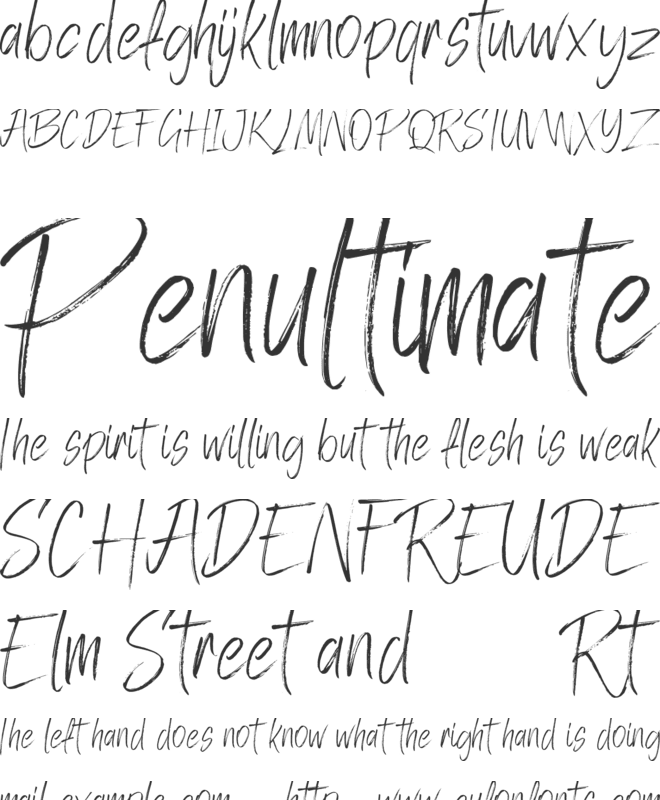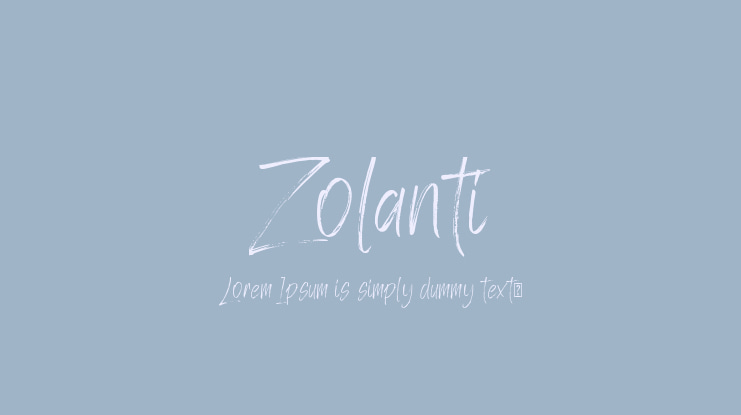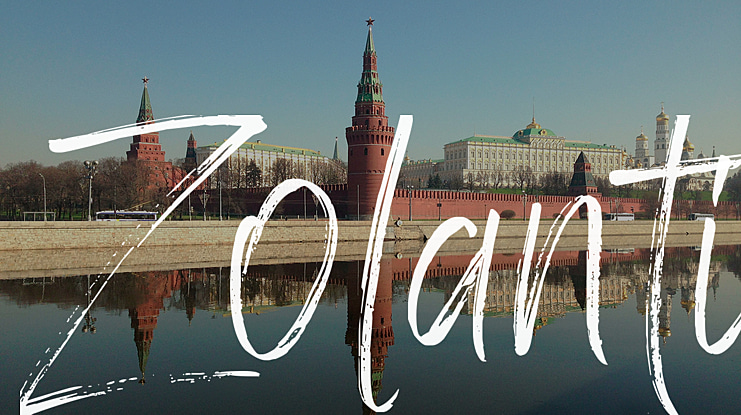
Zolanti is a handwritten brush font that looks rough and masculine. If you need a brush font that suitable for any kind of your design project then Zolanti is what you want. You can use this font on your creative projects like logos, printed quotes, posters, invitations, cards, product packaging, headers, Logotype, Letterhead, Apparel Design, labels, and many more.